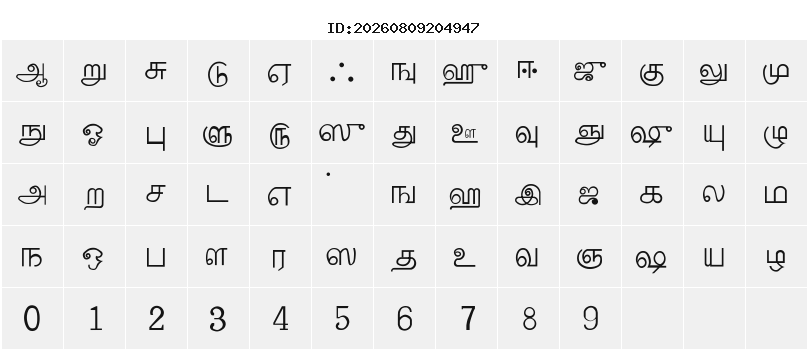
About Palladam-Normal.ttf
Palladam-Normal.ttf is a modern, elegant sans-serif font designed for ultimate readability and visual harmony. Perfect for branding, headlines, web design, and print materials.